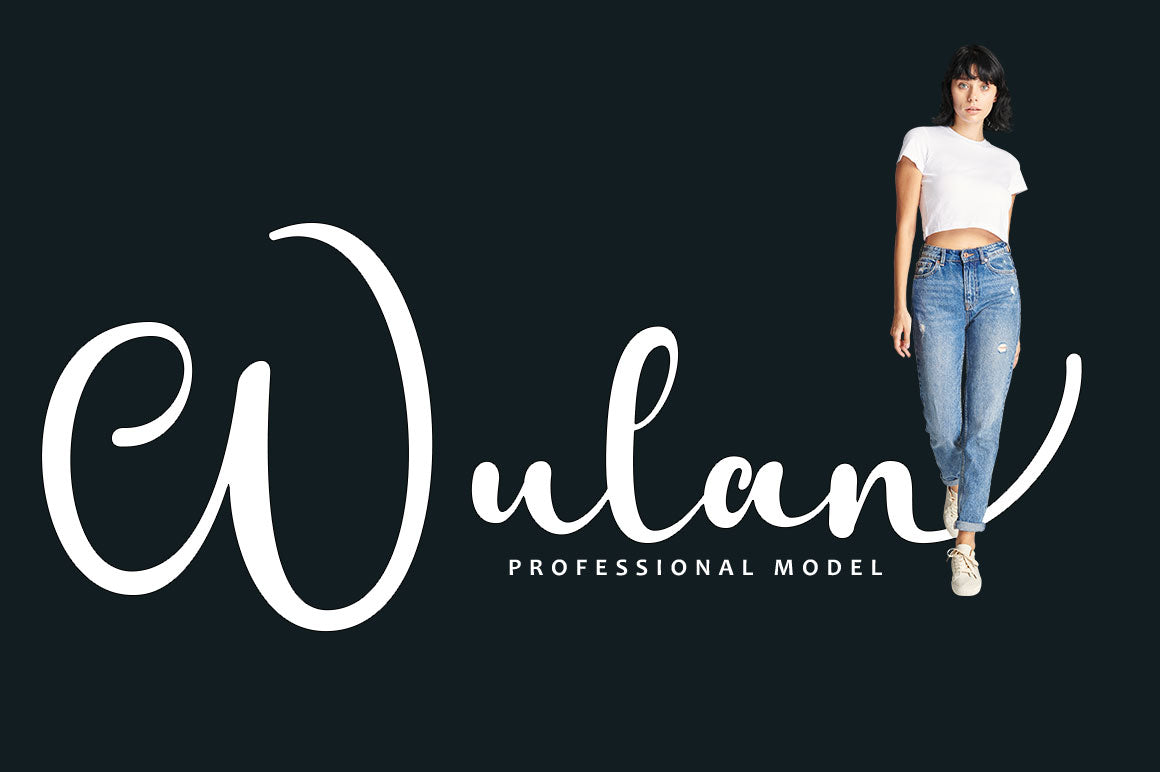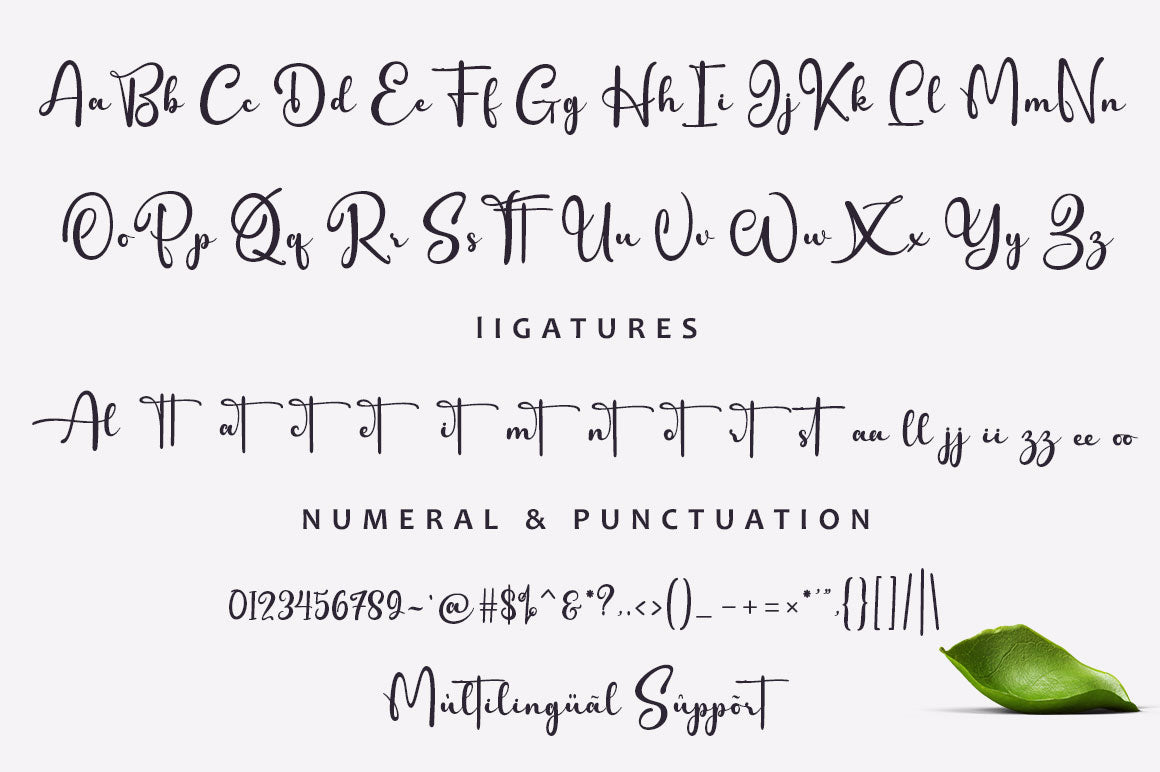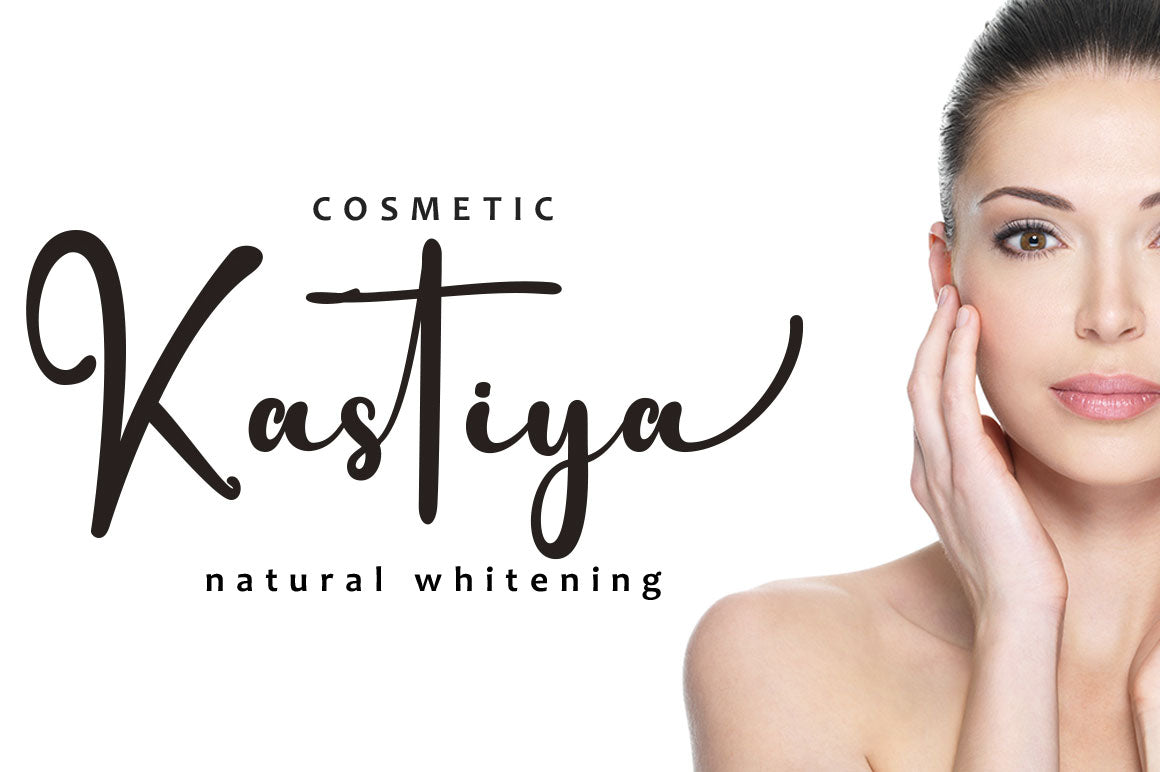
About Aliya Script
Aliya Script, a handwritten script font inspired by handwriting with an aesthetic touch. Aliya Script is flexible enough for web and print and can be used in a variety of projects such as stationery, packaging, apparel, wedding stationery, prints, quotes, social media graphics, planners, greeting cards, logos, branding and much more. The script includes a set of uppercase characters, numbers, symbols, two sets of lowercase letters, and ligatures. Complete Set of standard alphabet and punctuation marks Additional set of brushed lowercase endings Handwritten ligature. Thank you so much for checking out my shop! Happy creative! Cheers!